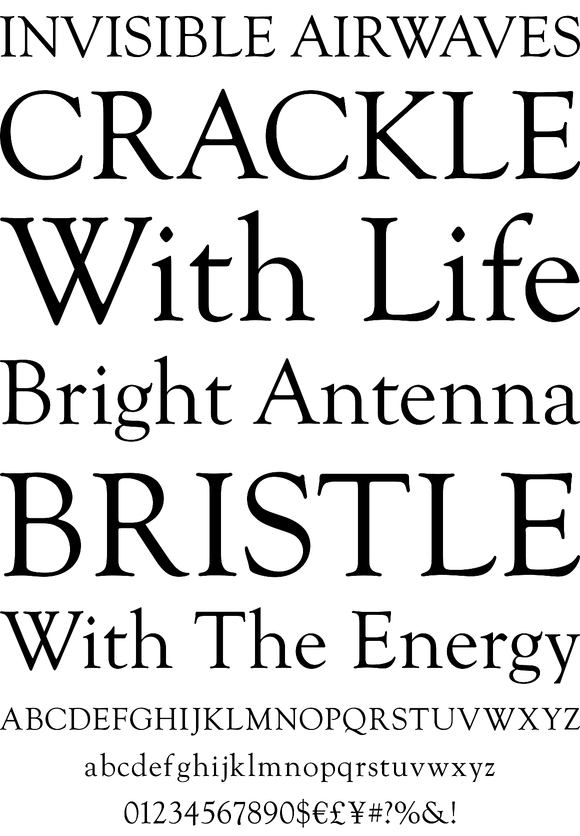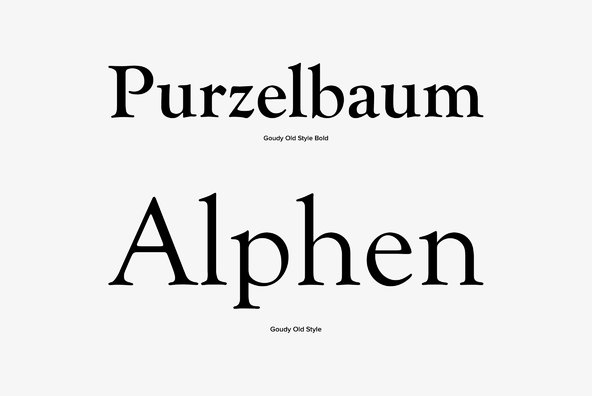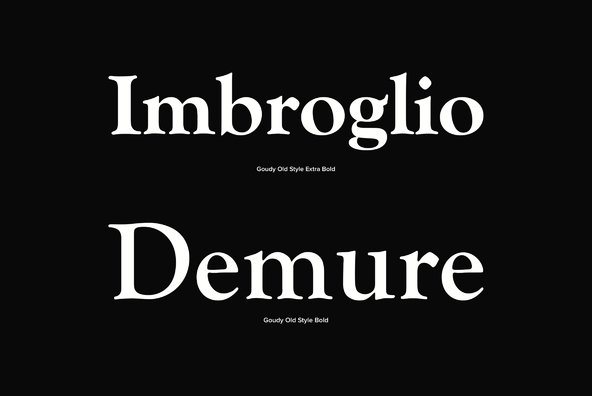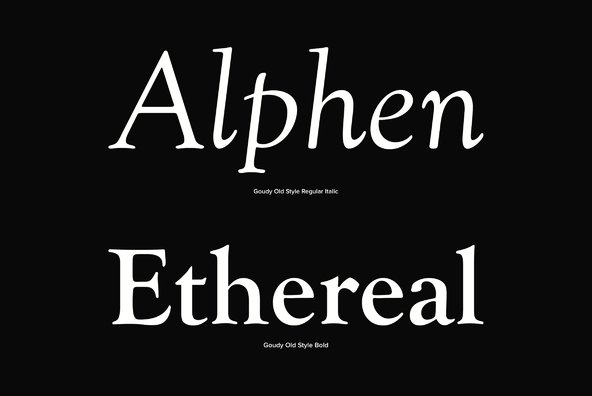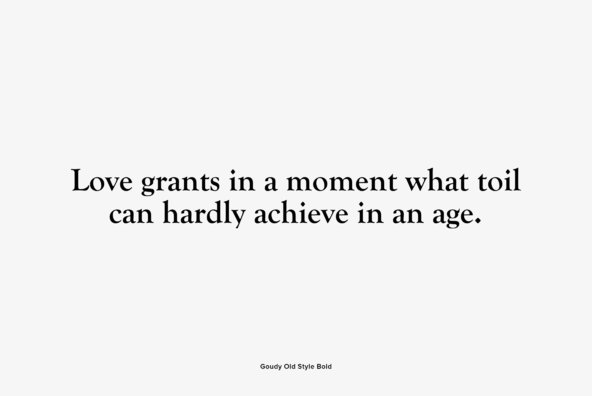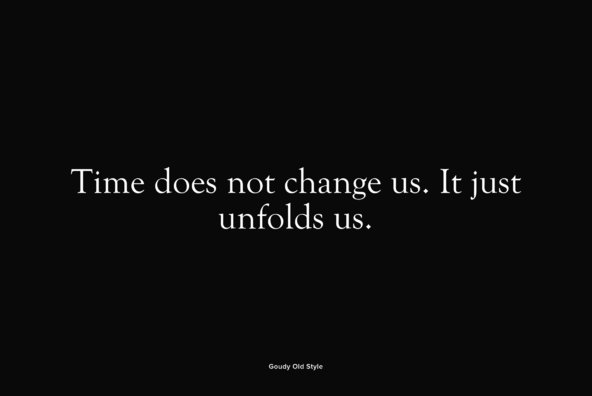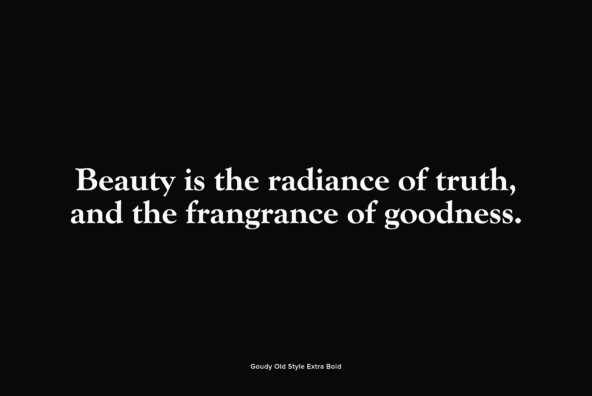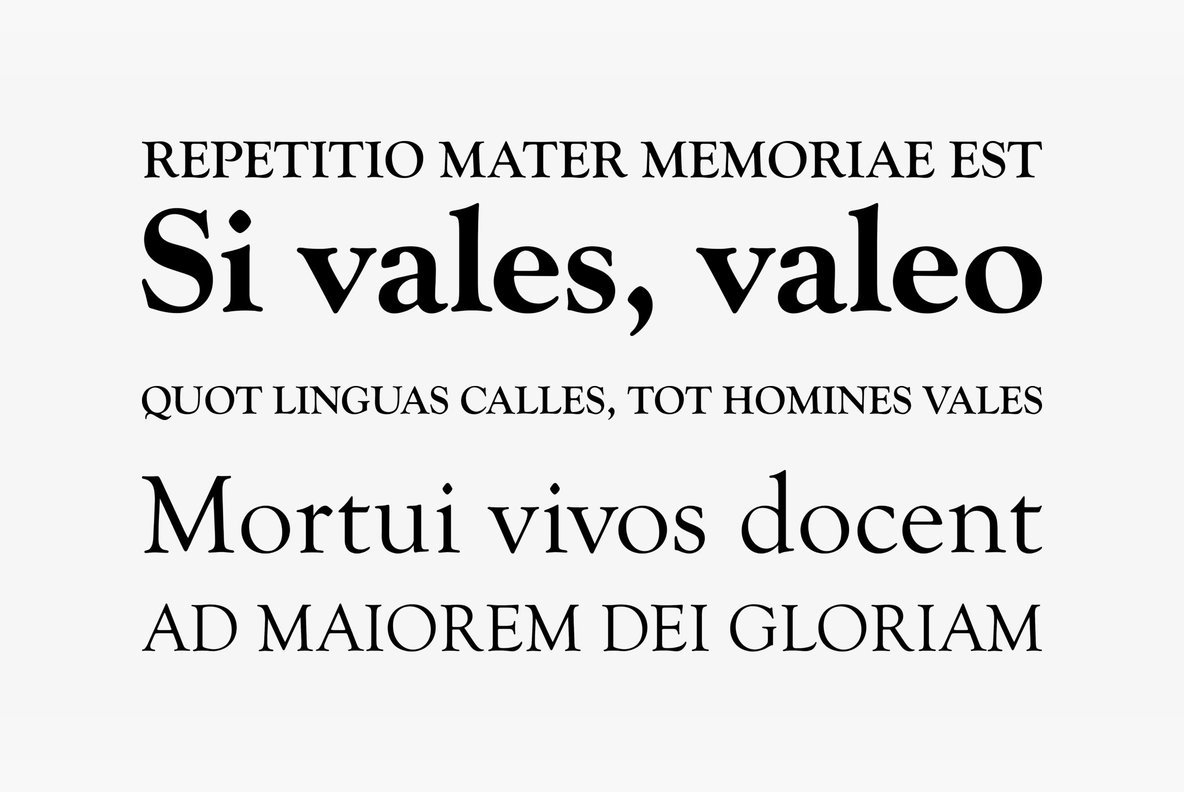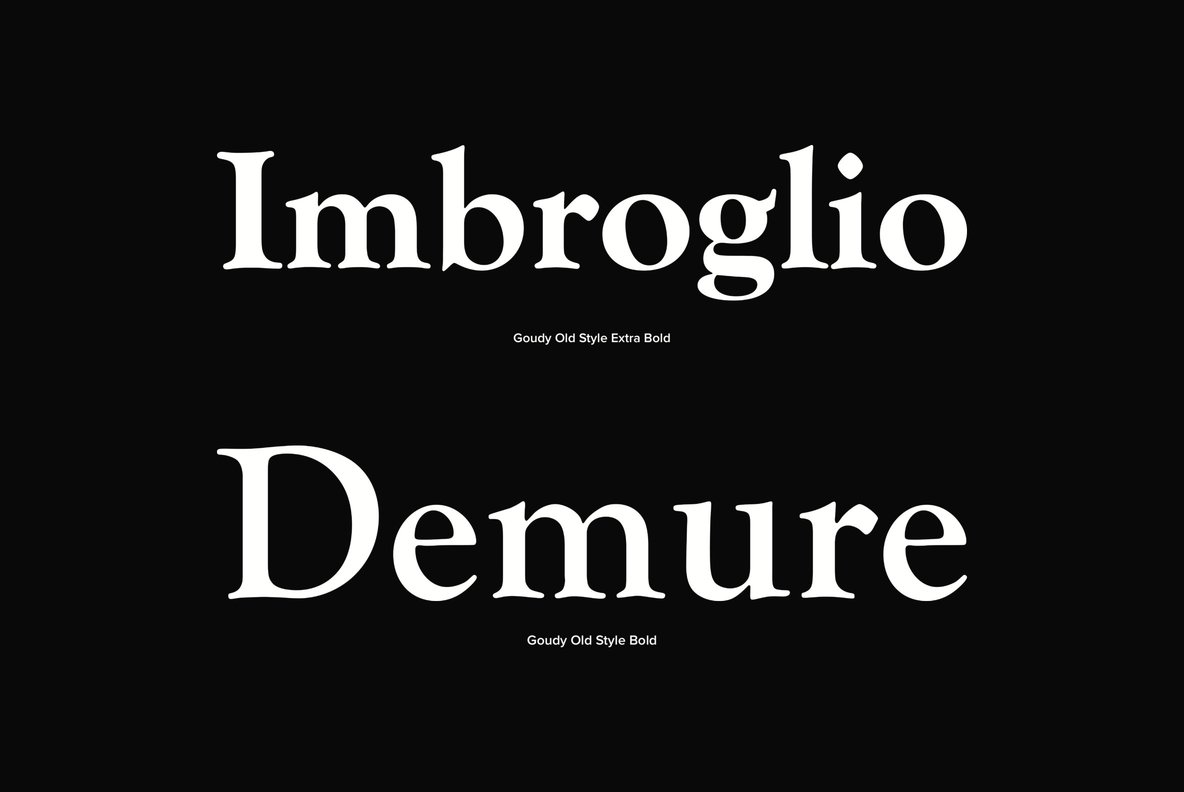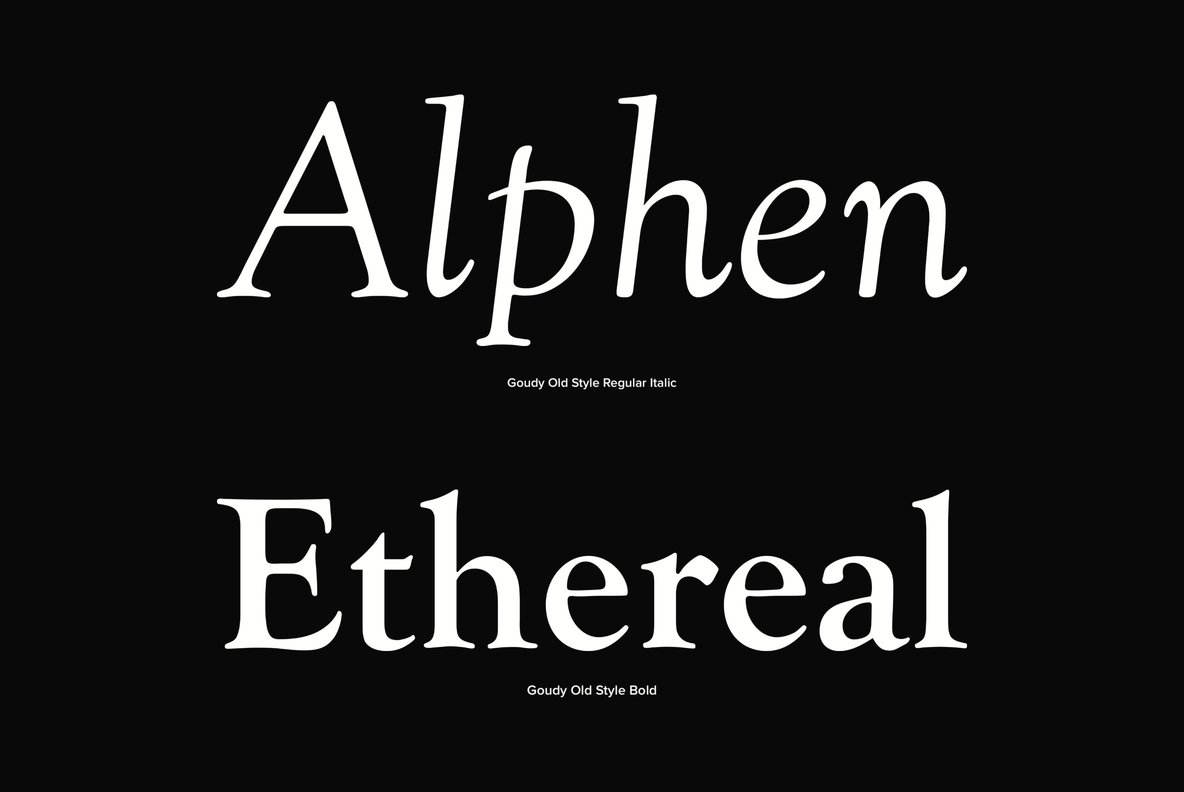
Goudy Old Style
Designed by Frederic William Goudy in 1915, Goudy Old Style is a decorative font release by URW. Contains language support for West, East, Turkish, Baltic, and Romanian.